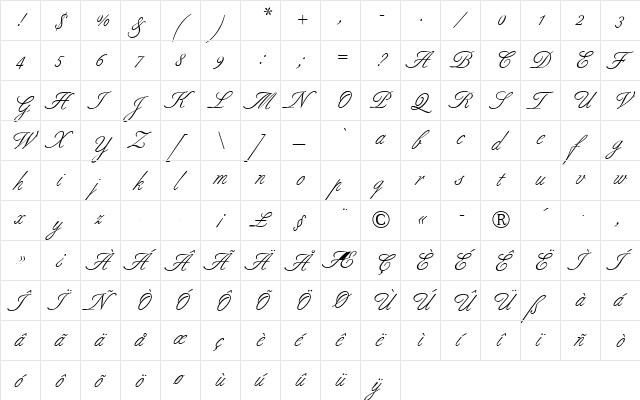
Berthold Script BQ Regular
Design Context for Berthold Script BQ Typeface
Berthold Script BQ flows with the natural rhythm of handwritten lettering, making it ideal for designs that call for warmth and personal expression.
Font Pairing: Combine Berthold Script BQ with a simple geometric sans for maximum contrast — the tension between flowing curves and clean structure is a classic typographic pairing.
Pro Tip: Use Berthold Script BQ for short runs of text — names, titles, or taglines. Extended body copy in script faces tires the eye quickly.